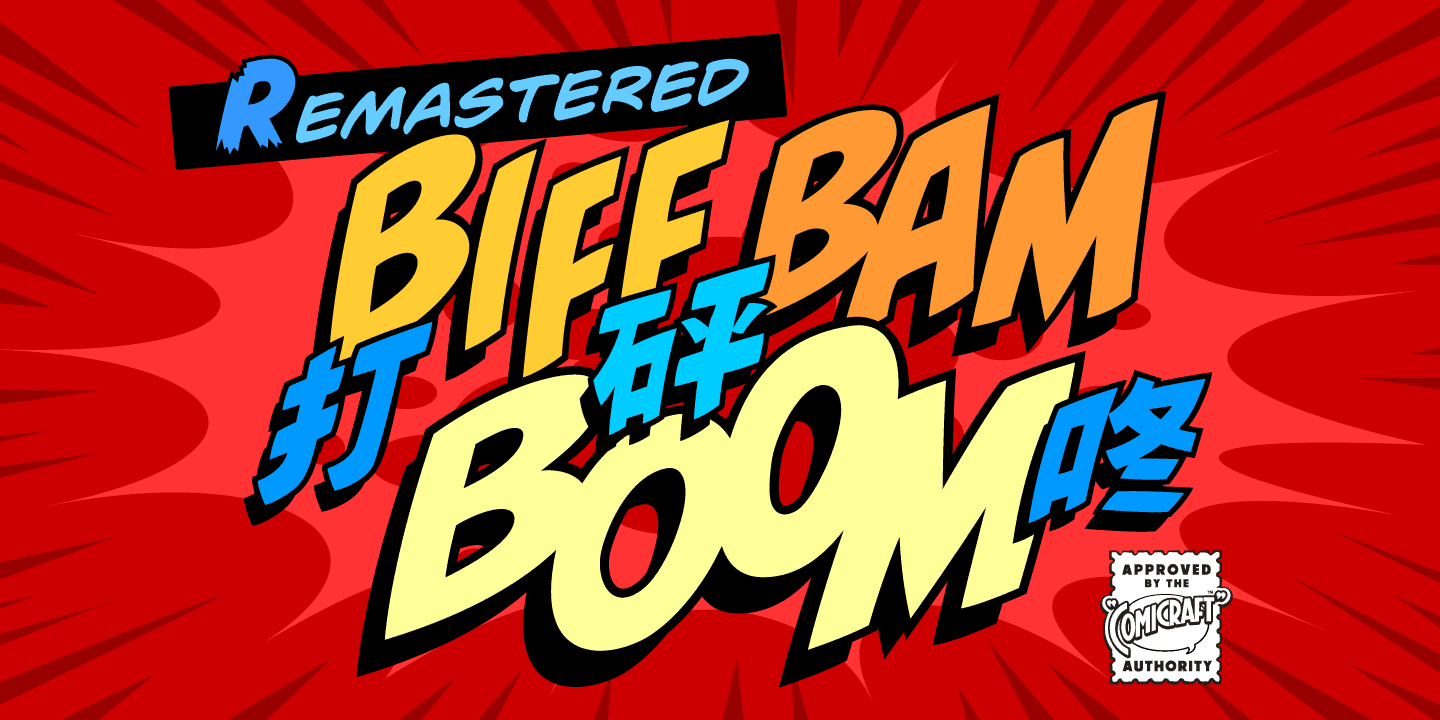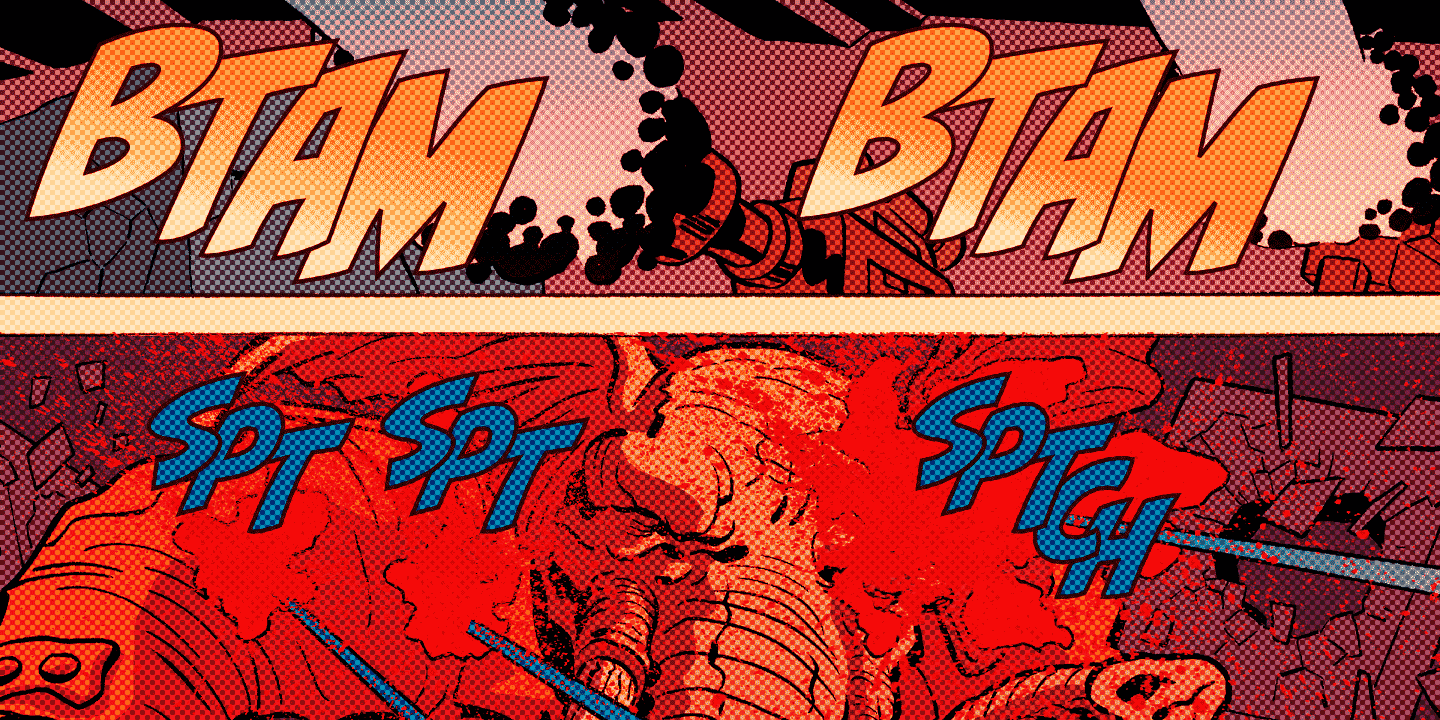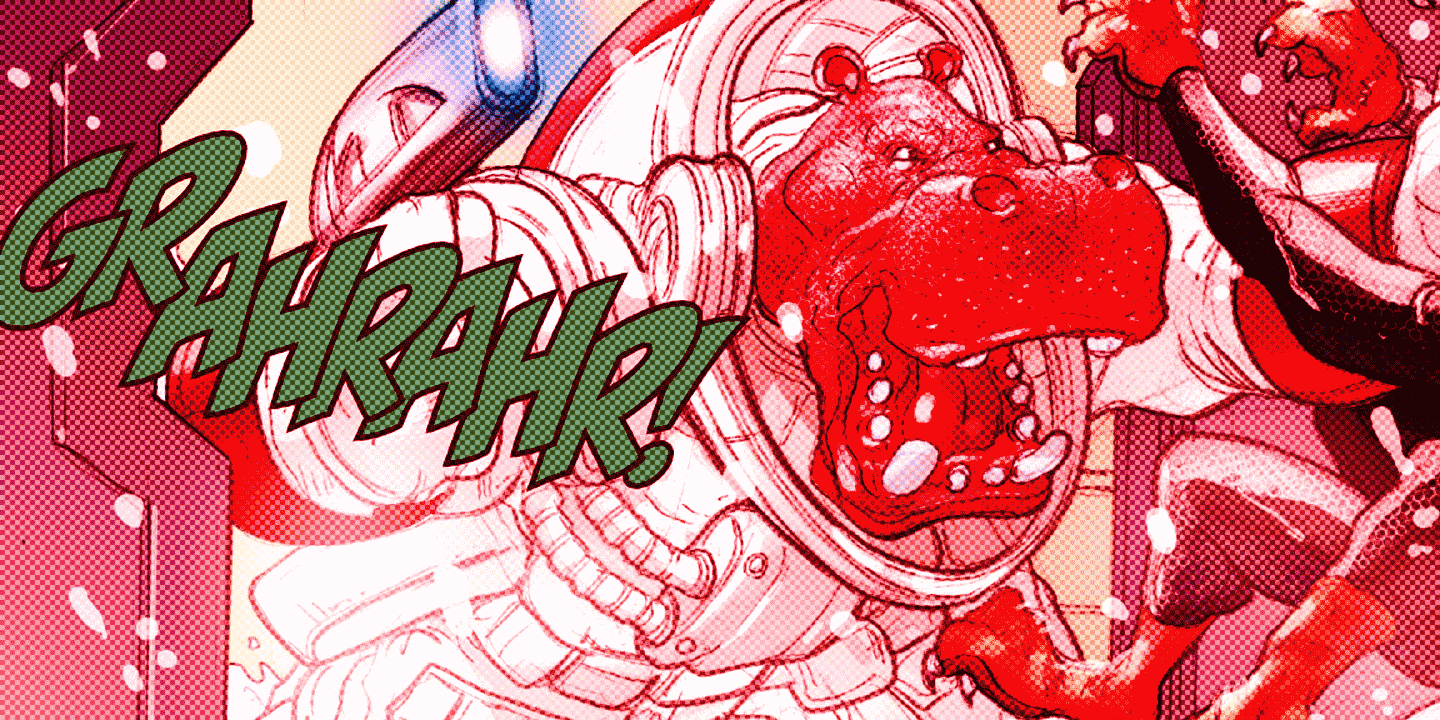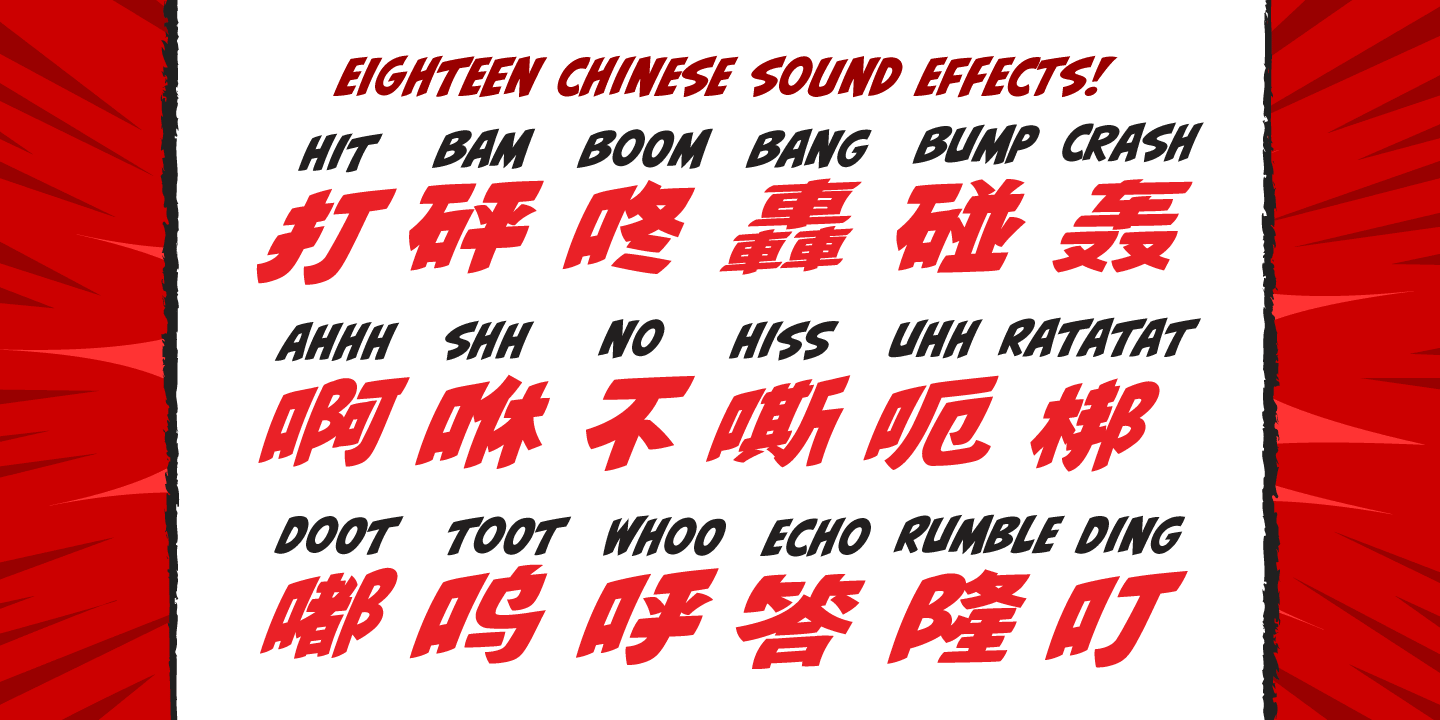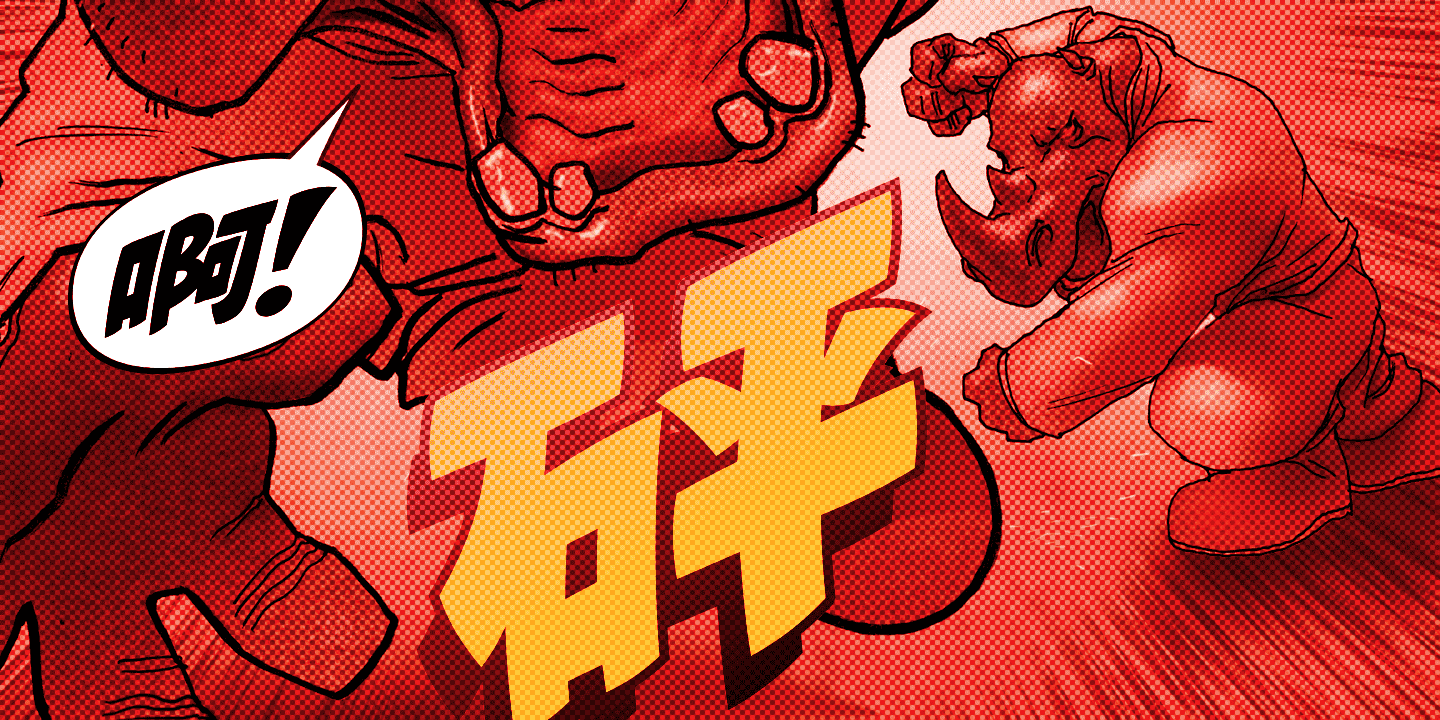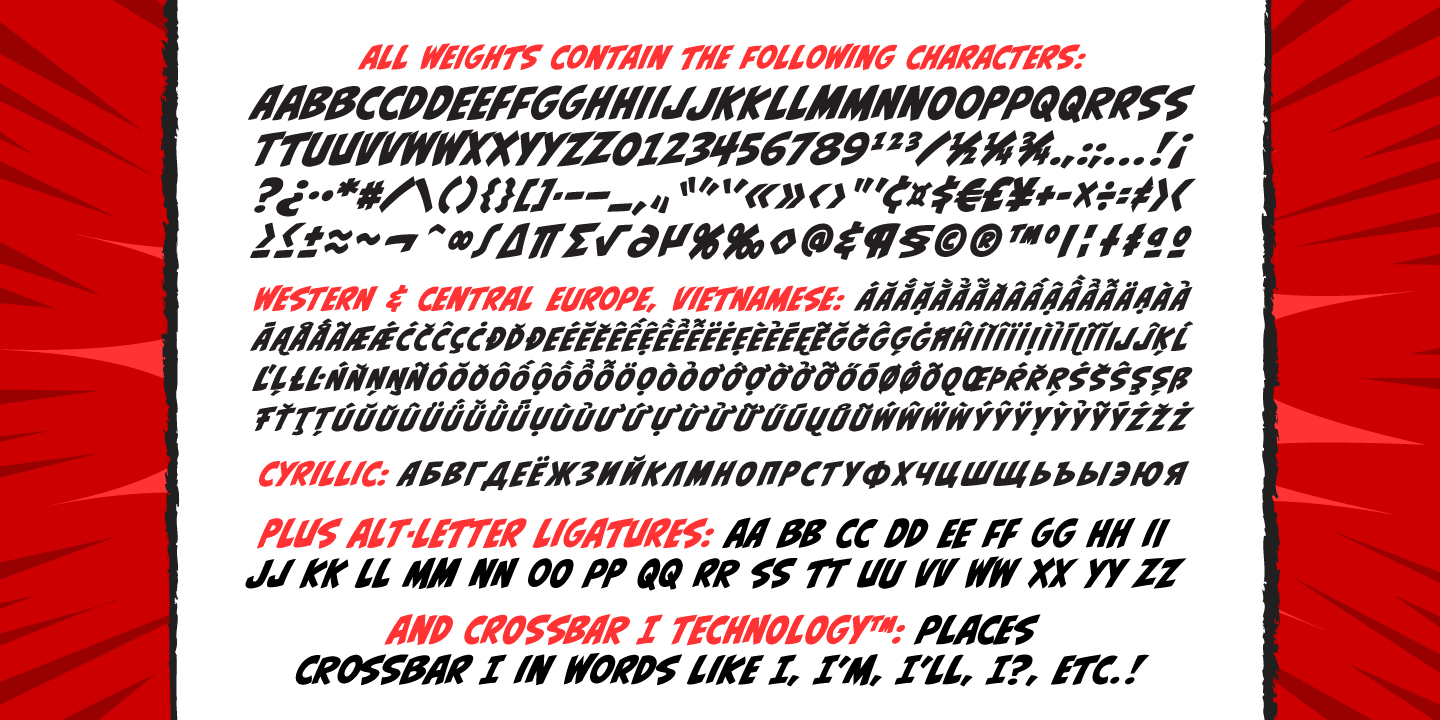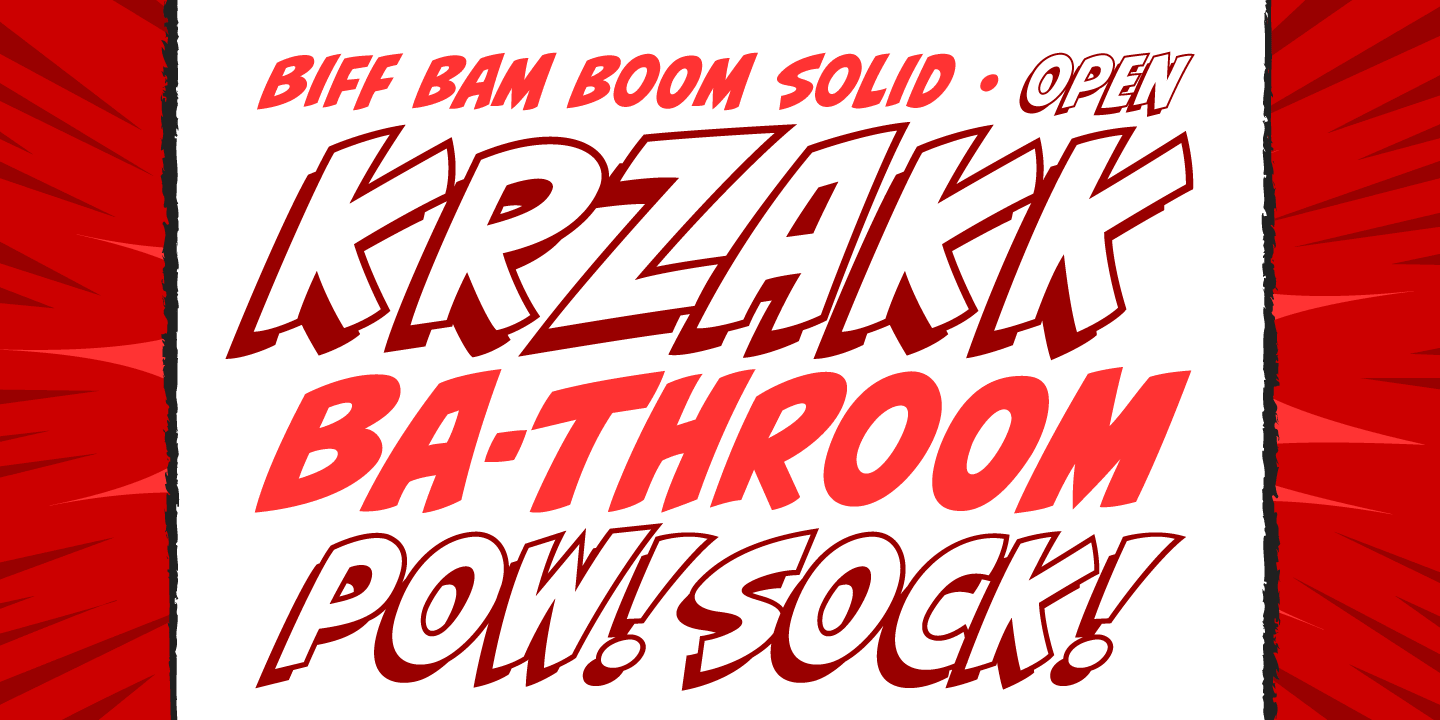
Biff Bam Boom
Font Family by Comicraft Fonts
Thrown from the pages of Spider-Man, Daredevil and Hulk comes BIFF BAM BOOM! Inspired by the Legendary Lettering Legerdemain of comics' Silver Age, Biff Bam Boom is a font you can't take a swing at without ending up with a broken nose. If you have any sense, duck and cover!
Remastered Biff Bam Boom includes Central European, Vietnamese & Cyrillic characters, improved spacing & kerning, auto double-letter ligatures, Crossbar I Technology™ and 18 Chinese Sound Effects!